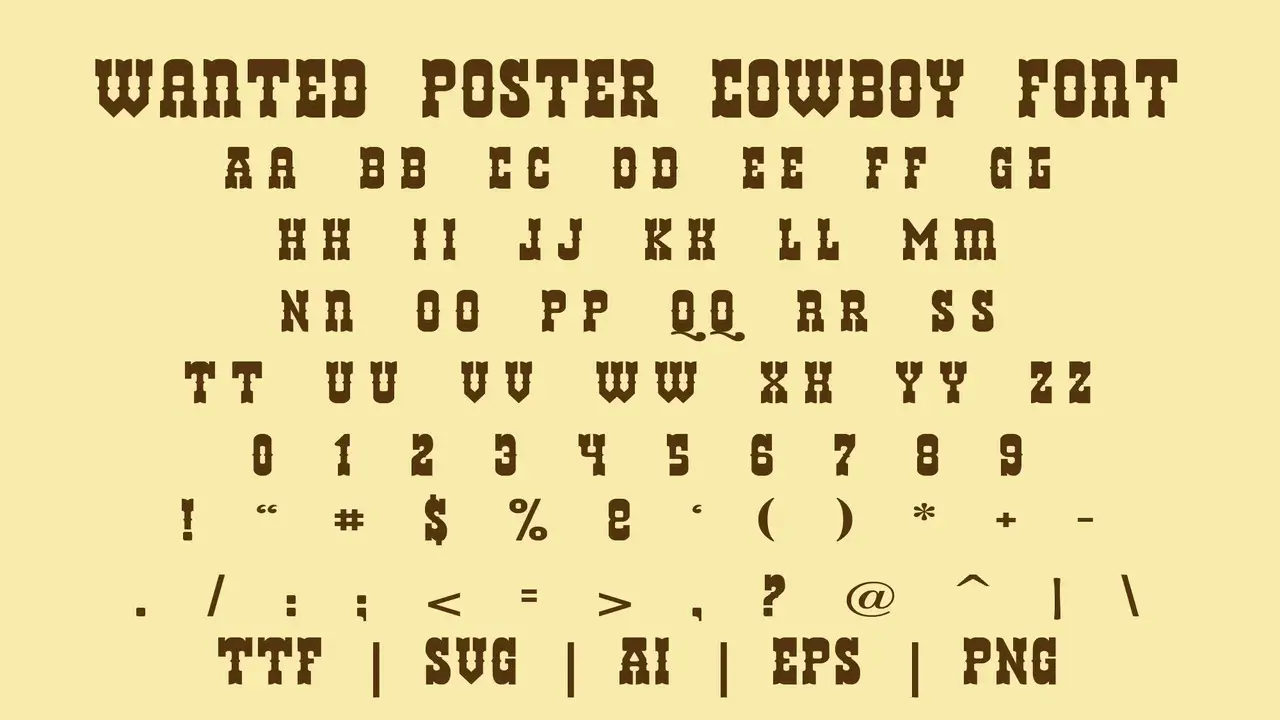
Top Wanted Poster Fonts: Enhance Your Designs
Choosing the perfect typeface for your wanted poster design. Enhance your designs with fonts for your wanted posters.
When creating a wanted poster, your chosen font can make all the difference in capturing that classic and authentic look. One popular font that is often used for wanted posters is Old West. This font exudes a sense of history and adds a touch of nostalgia to your design.
Here we will introduce you to the world of wanted poster fonts. These unique and eye-catching fonts can instantly enhance your designs, giving them a vintage Wild West feel. We will provide a curated list of the top poster fonts available. Get ready to take your designs to the next level.
Poster Fonts
Top Wanted Poster Fonts
Enhance your wanted poster designs with top-notch fonts that capture the Wild West allure. When creating a wanted poster, choosing the right font can make all the difference in capturing that classic Old West look. Luckily, there are several free fonts available that can help you achieve that authentic aesthetic.
Nashville by Disturbed Type and Helldorado by No Images are 100% free and offer bold, rugged lettering that is perfect for a wanted poster. JACKPOT COLLEGE NCV by the Fontry is another great option for a vintage-inspired look with collegiate-style lettering.
If you’re looking for something more sinister, Endless Night by Creativetacos offers a spooky, horror-themed font that can add an extra mystery to your wanted poster. And if you want to go for a truly authentic touch, Serial is a classic typewriter-style font that will give your poster an old-fashioned feel. With these free fonts at your disposal, you can create a standout wanted poster that captures the attention of everyone who sees it.
Nashville By Disturbed Type
Nashville by Disturbed Type is a popular font often used to create wanted posters. This font has a unique vintage and distressed look, which adds authenticity and character to the design. It captures the ruggedness and wildness associated with the Old West, making it a perfect choice for creating an eye-catching wanted poster.
The Nashville font is available in various styles and weights, allowing you to customize the poster’s typography to suit your needs. So, if you want to create a wanted poster that stands out from the crowd, consider using the Nashville font by Disturbed Type.
Helldorado By No Images
Helldorado by No Images is a popular font choice for creating wanted posters. This font has a vintage, western-style design that perfectly captures the essence of the Wild West.
With bold, rugged lettering and decorative elements, Helldorado adds an authentic and eye-catching touch to any wanted poster design. Whether you’re creating a poster for a themed party or an artistic project, Helldorado is sure to give your design that classic “wanted” look.
If you’re looking for the perfect font to create a wanted poster, JACKPORT COLLEGE NCV by the Fontry is a great option. This font has a bold and eye-catching design that is reminiscent of old Western-style wanted posters.
Best of all, it’s available for personal use free of charge, making it an affordable choice for your project. Whether you’re creating a poster for a themed party or a school project, JACKPORT COLLEGE NCV is sure to add an authentic touch to your design. So go ahead and give this font a try and let your creativity shine!
Endless Night By Creativetacos
Endless Night by Creativetacos is a font that is commonly used for wanted posters. Its bold and rugged design perfectly captures the essence of an old-western outlaw. The font features sharp edges and distressed textures, giving it an authentic and vintage feel.
Whether you’re creating a wanted poster for a themed party or a creative project, Endless Night is sure to add that extra touch of authenticity and intrigue. So, if you want to create a wanted poster that stands out from the crowd, try this font.
Choosing the right font for your wanted poster design is crucial in creating an impactful and visually appealing result. The font you select sets the tone, communicates the message, and captures your audience’s attention. Consider legibility, style, and appropriateness to ensure your wanted poster stands out. Explore our top picks for wanted poster fonts and take your designs to the next level.
4.What Is The Font That Looks Western?
Ans: Some of the most popular fonts that have a Western aesthetic include “Bebas Neue,” “Old West,” “Bison,” and “Buffalo.” You can try different Western-style fonts to see which complements your design the best.
5.What Is A Poster Wanted Font?
Ans: A poster font is a type of font that captures the aesthetic of old-fashioned, Wild West-style wanted posters. These fonts have a bold, rugged look with decorative elements like distressed textures or ornate lettering.